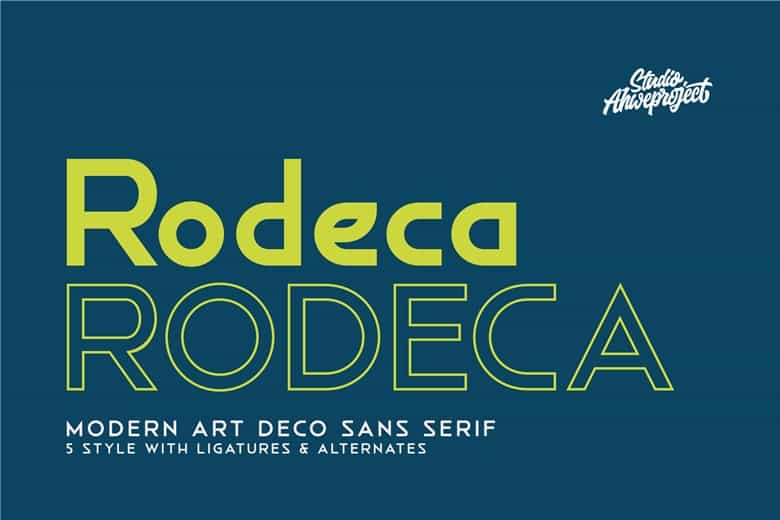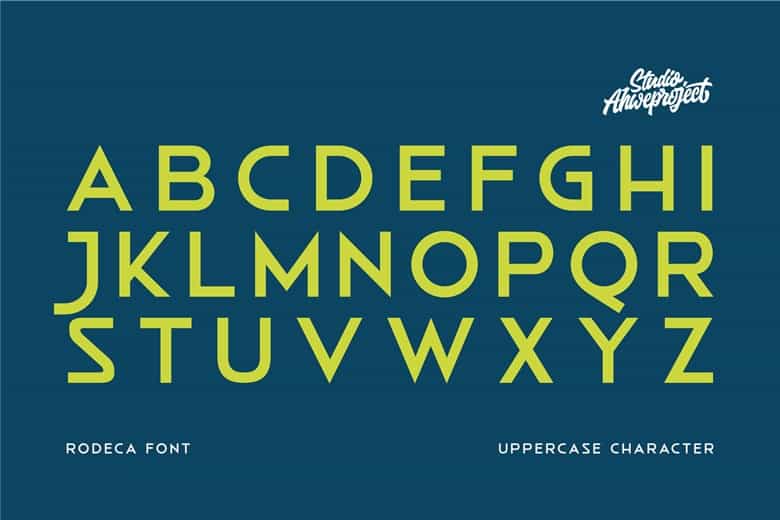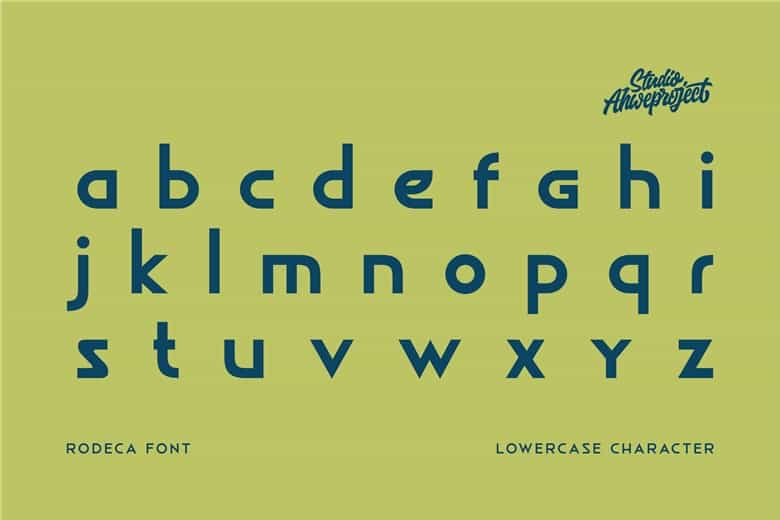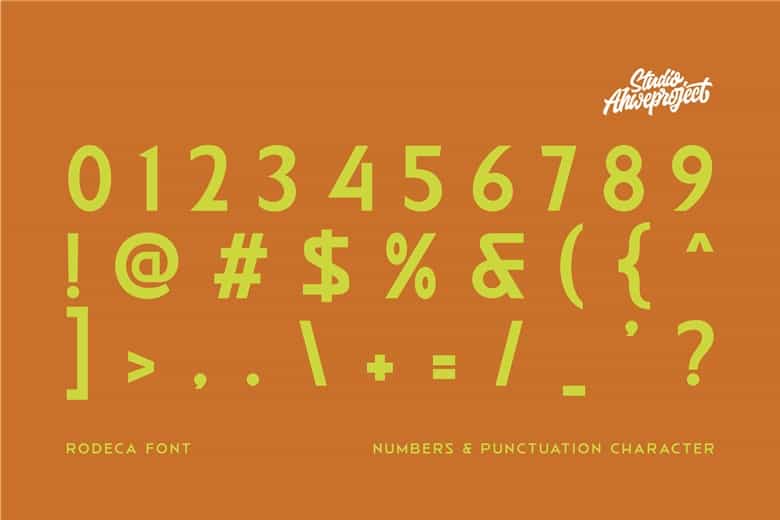
Rodeca Font
Rodeca is a contemporary sans serif font with a classic look of geometric figurations but with a contemporary vibe. Rodeca comes with 5 distinct styles, ligatures, and alternates that can be used to complete any design task, be it branding, editorial layouts, posters, logo, or high-end packaging. It is a font that is professionally made with a focus on creative individuals who want a robust visual identity.